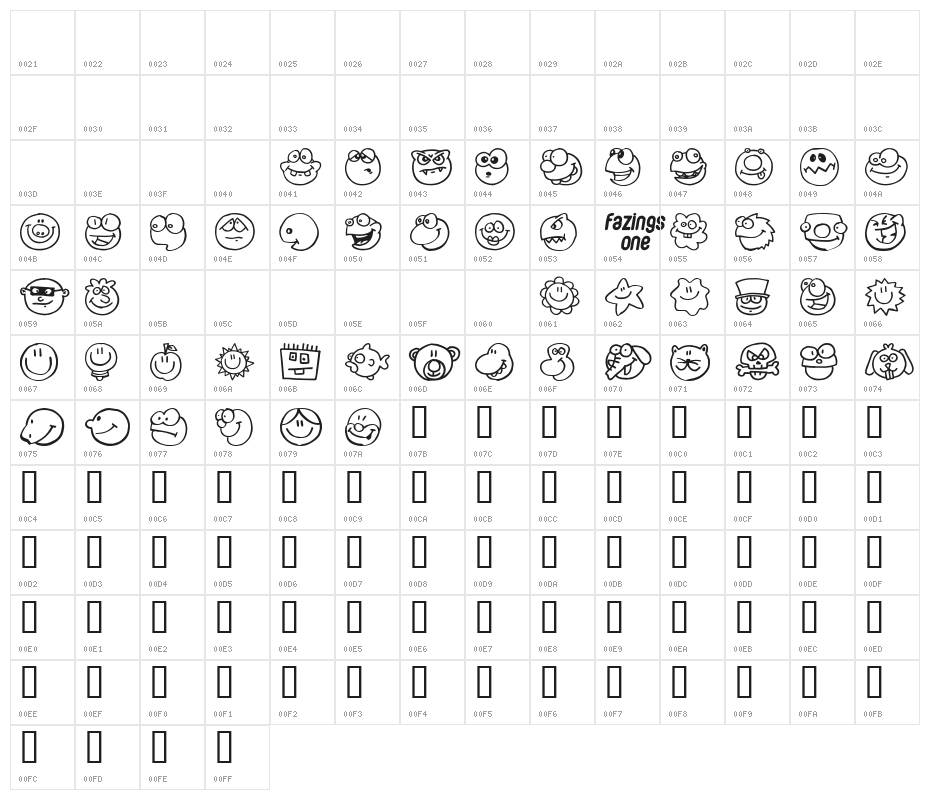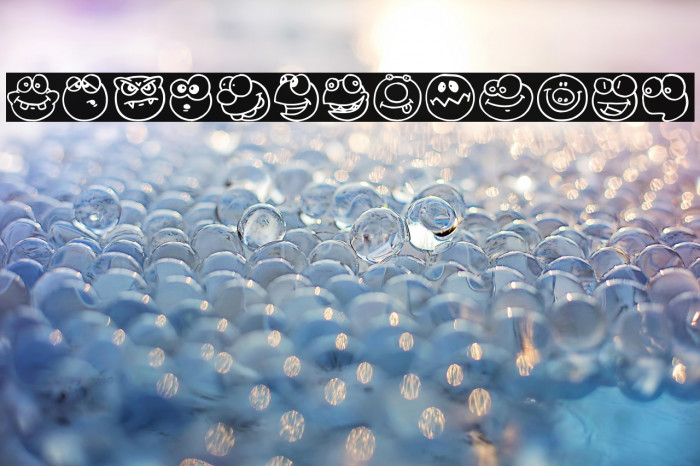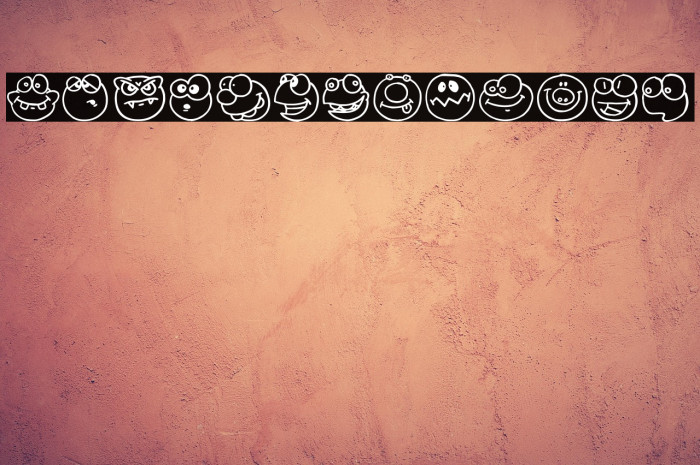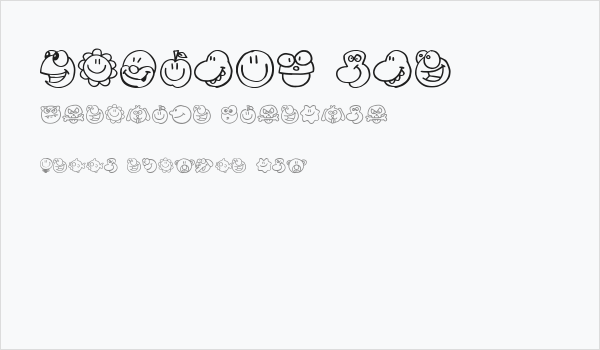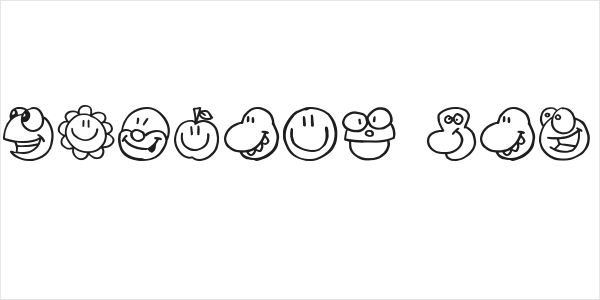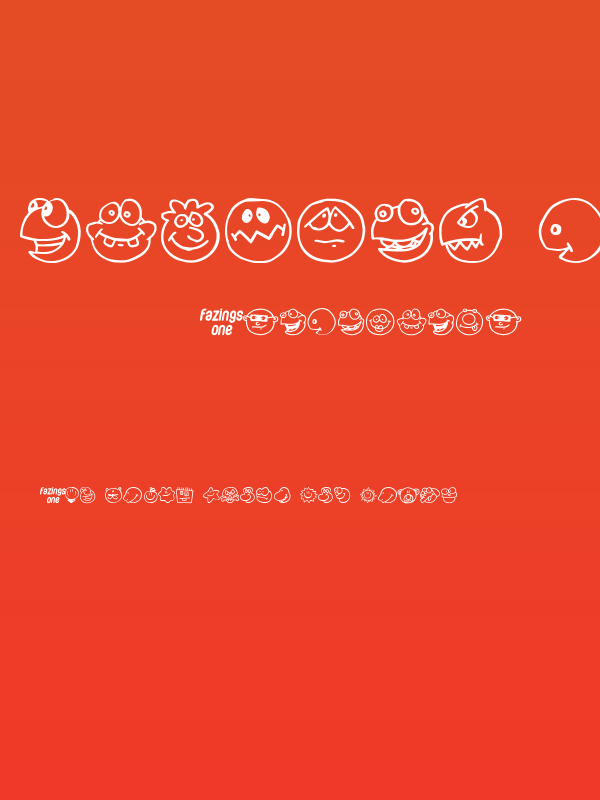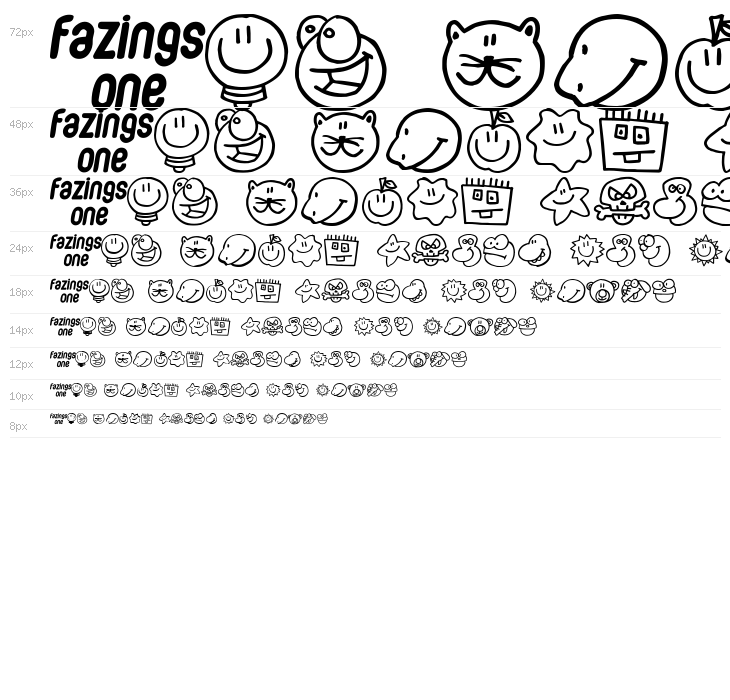
Fazings one Font
Fazings one Description
This is not a traditional font but rather a collection of playful and whimsical character icons. Each character is uniquely designed with expressive facial features, ranging from happy and cheerful to quirky and mischievous. The icons are outlined in bold, black lines, giving them a cartoonish and lively appearance. They are perfect for adding a fun and informal touch to creative projects. The set includes a variety of faces and expressions, making it versatile for different themes and moods.
Overall StyleCartoonish, Playful
Use CaseLogos, Illustrations, Decorative elements
Proposed ProjectsIdeal for children's books, comic strips, playful branding, or educational materials.